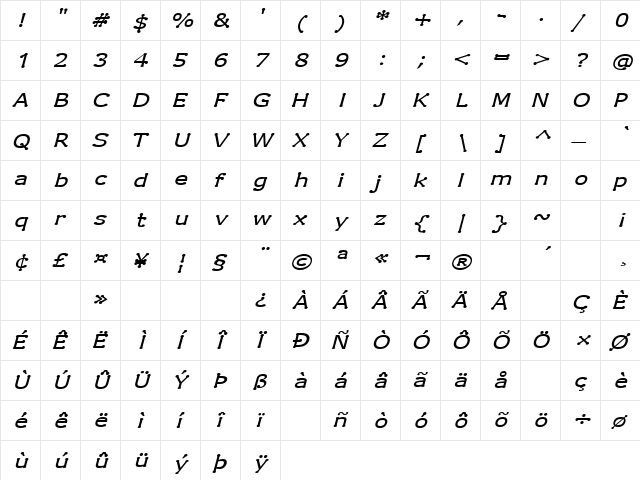
Drummon Italic
Design Context for Drummon Typeface
Drummon takes a measured approach to typography — its balanced proportions and neutral character make it a reliable workhorse for both digital and print work. The slanted form adds forward momentum and visual energy.
Pro Tip: Use Drummon for emphasis, pull quotes, and subheadings where its slanted energy can add rhythm to the layout.